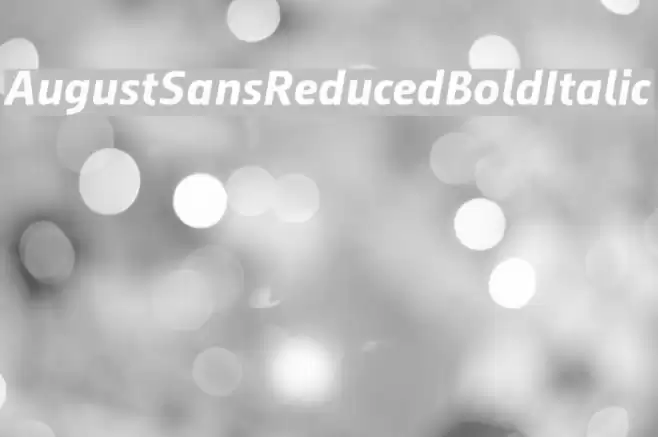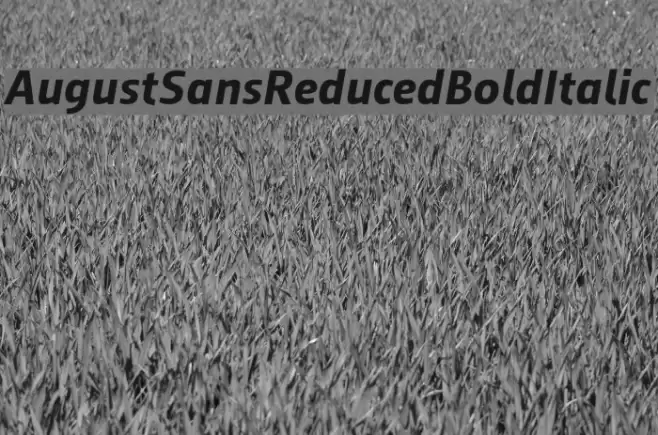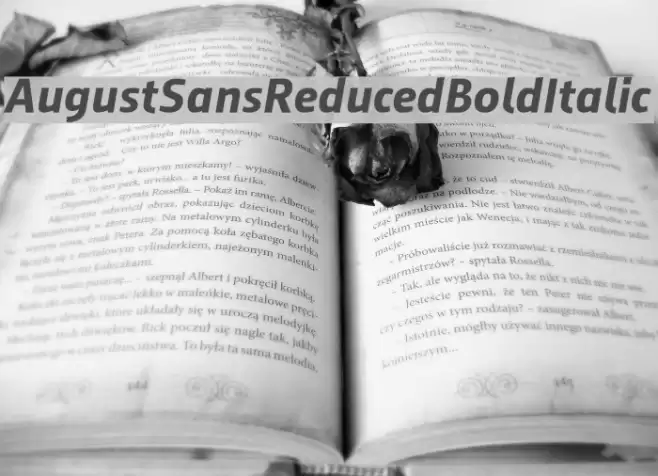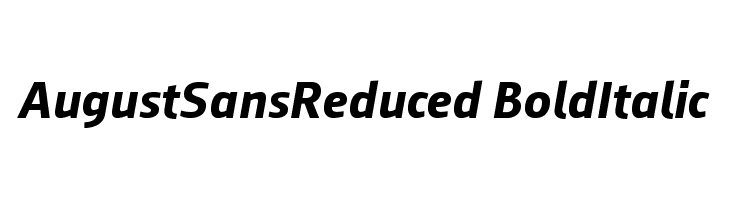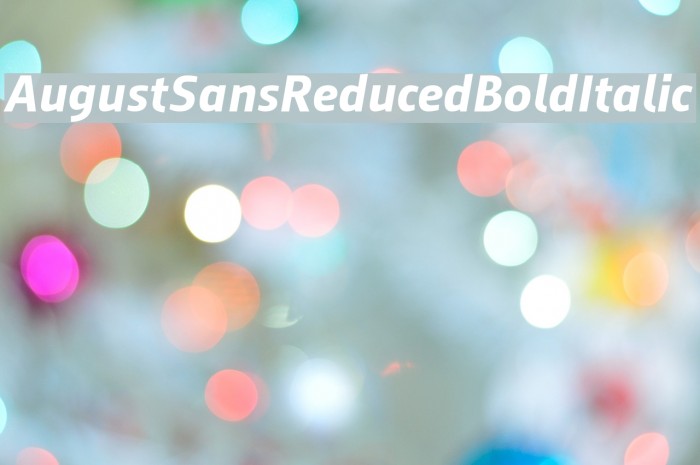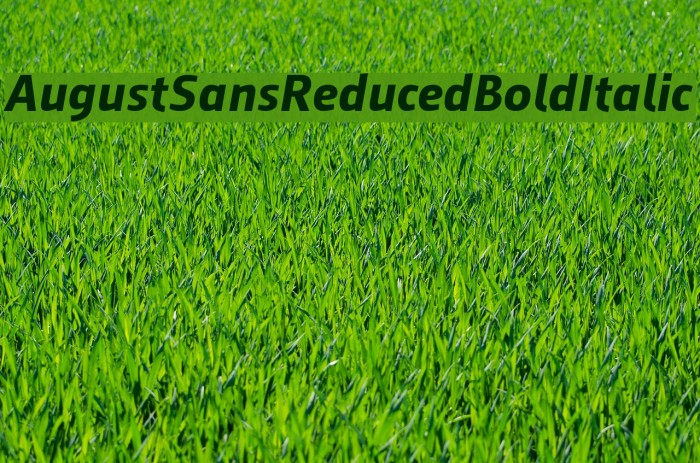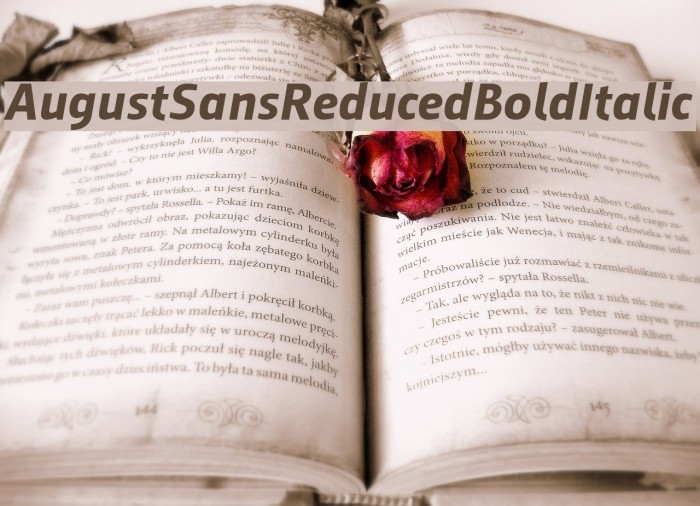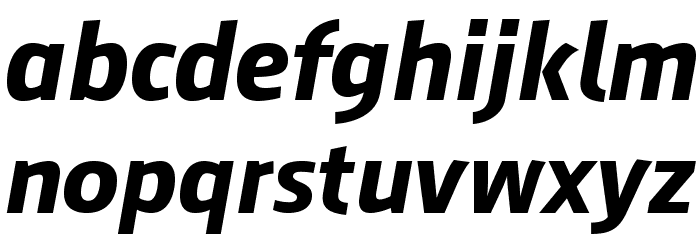
AugustSansReduced-BoldItalic Font
AugustSansReduced-BoldItalic Description
This font features a bold and italicized style, offering a modern and dynamic appearance. The letters are slightly slanted, adding a sense of motion and energy. The strokes are consistent in thickness, providing a uniform look across all characters. The font maintains a clean and professional aesthetic, making it suitable for a variety of design applications. The character spacing is balanced, ensuring readability and clarity. Its bold nature makes it stand out, while the italicization adds a touch of elegance and sophistication.
A bold, italicized font with a modern and dynamic style from Uncategorized fonts.
- Proposed Projects: Ideal for branding, advertising, headlines, and modern web design.
- Use Case: Headlines, Logos, Advertising